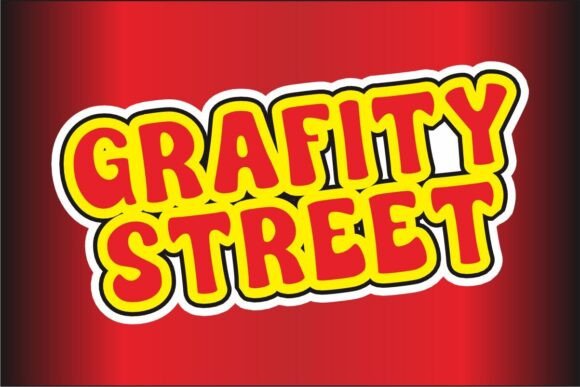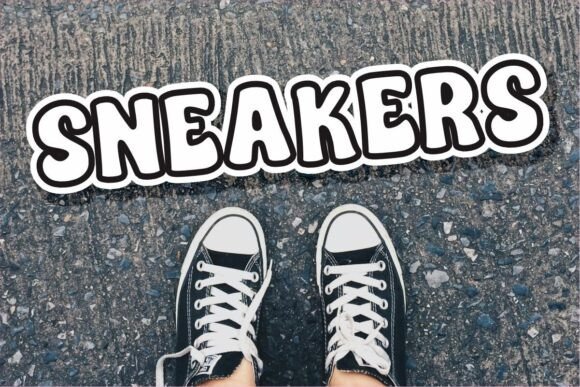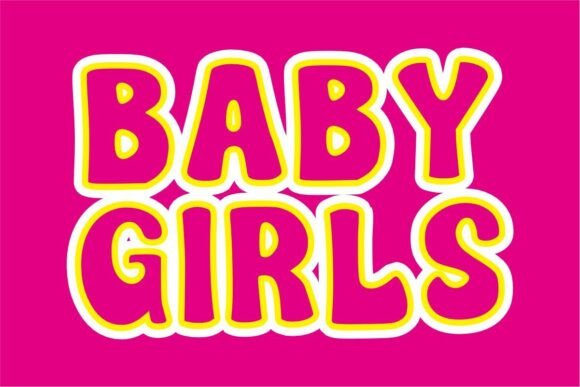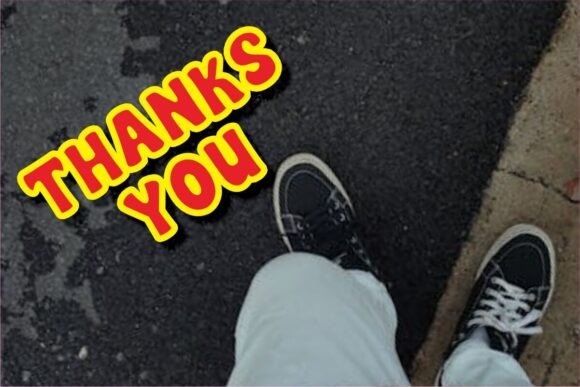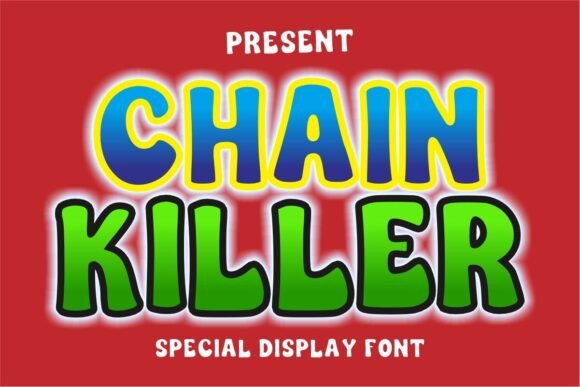
Unleash Your Creativity with Chain Killer Font: The Ultimate Display Font
In the world of typography, fonts play a crucial role in conveying messages, expressing emotions, and capturing attention. For designers, crafters, and marketers, finding the perfect font can be a daunting task. However, if you’re looking for a font that can instantly elevate your designs and make your text stand out, look no further than the Chain Killer Font. This bold, graffiti-style display font is designed to grab attention, convey confidence, and leave a lasting impression.
What is Chain Killer Font?
Chain Killer Font is an eye-catching display font that features bold lines, unique graffiti-style lettering, and a rugged charm that sets it apart from other fonts. Its distinctive style makes it perfect for headlines, logos, ads, and any other design project that requires a font that can command attention. Whether you’re designing a poster, a flyer, or a social media graphic, Chain Killer Font is sure to make your text pop.
Key Features of Chain Killer Font
- Bold and Graffiti-Style Lettering: Chain Killer Font features bold, graffiti-style lettering that adds a touch of edginess to your designs.
- Unique and Eye-Catching: The font’s unique style ensures that your text stands out from the crowd and grabs attention.
- Highly Versatile: Chain Killer Font can be used for a wide range of design projects, including headlines, logos, ads, posters, flyers, and more.
- Easy to Read: Despite its bold style, Chain Killer Font is easy to read, making it perfect for designs that require both style and substance.
Who Can Benefit from Chain Killer Font?
Chain Killer Font is an excellent choice for designers, crafters, and marketers who want to add a touch of edginess to their designs. Here are some professionals who can benefit from using Chain Killer Font:
- Graphic Designers: Graphic designers can use Chain Killer Font to create stunning posters, flyers, brochures, and other marketing materials.
- Log designers: Log designers can use Chain Killer Font to create unique and memorable logos that stand out from the competition.
- Digital Marketers: Digital marketers can use Chain Killer Font to create eye-catching social media graphics, ads, and email headers.
- Crafters: Crafters can use Chain Killer Font to create custom signs, posters, and other decorative items.
Tips for Using Chain Killer Font Effectively
To get the most out of Chain Killer Font, here are some tips to keep in mind:
- Use it sparingly: Chain Killer Font is bold and attention-grabbing, so use it sparingly to avoid overwhelming your design.
- Pair it with contrasting fonts: Pair Chain Killer Font with contrasting fonts to create visual interest and hierarchy.
- Experiment with colors: Chain Killer Font looks great in bold colors, so experiment with different colors to find the one that works best for your design.
- Keep it legible: Make sure to adjust the font size and style to ensure that your text is legible.
Chain Killer Font is an exceptional display font that can instantly elevate your designs and make your text stand out. Its bold, graffiti-style lettering and unique charm make it perfect for designers, crafters, and marketers who want to add a touch of edginess to their designs. With its versatility, ease of use, and high impact, Chain Killer Font is an excellent choice for anyone looking to create stunning designs that capture attention and leave a lasting impression.